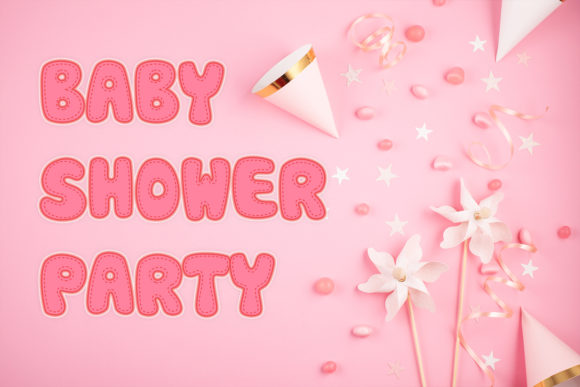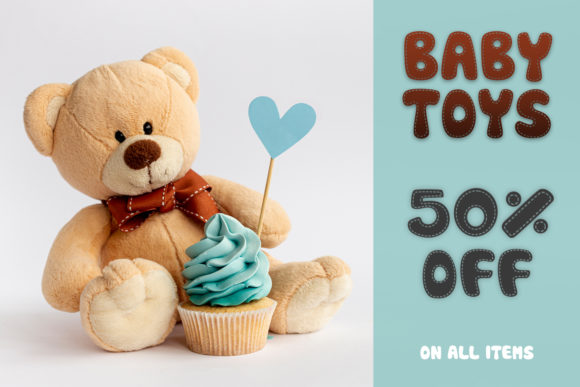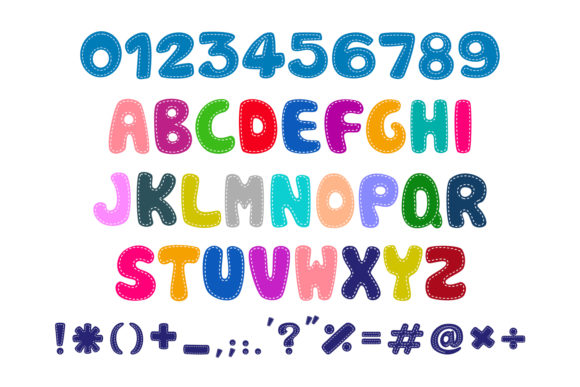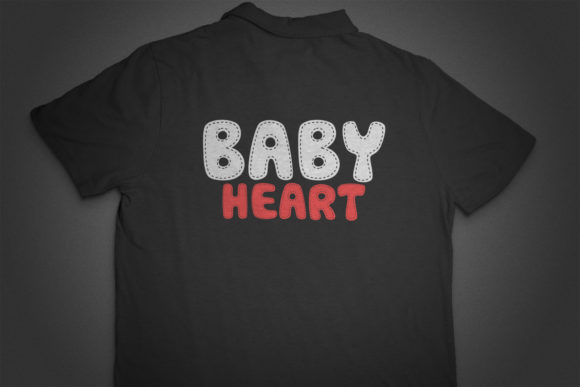
Baby Font: The Cute and Quirky Display Font to Elevate Your Designs
Are you tired of using the same old fonts in your designs? Do you want to add a touch of joy and whimsy to your creative projects? Look no further than Baby Font, a delightful and quirky display font that’s sure to make your designs stand out. In this article, we’ll take a closer look at Baby Font, its features, and how you can use it to take your designs to the next level.
What is Baby Font?
Baby Font is a beautiful display font that’s designed to add a playful and cheerful touch to your designs. With its cute and quirky style, it’s perfect for designers and crafters who want to create fun and engaging projects. Whether you’re working on a logo, poster, or social media graphic, Baby Font is sure to bring a smile to your audience’s face.
Key Features of Baby Font
So, what makes Baby Font so special? Here are some of its key features:
- Cute and Quirky Style: Baby Font has a unique and playful style that’s sure to capture your audience’s attention.
- Display Font: Baby Font is designed as a display font, making it perfect for headlines, titles, and other prominent text elements.
- Easy to Read: Despite its playful style, Baby Font is easy to read, even at smaller sizes.
- Versatile: Baby Font can be used in a wide range of design projects, from logos and posters to social media graphics and more.
How to Use Baby Font in Your Designs
Now that we’ve covered the features of Baby Font, let’s talk about how you can use it in your designs. Here are some ideas to get you started:
- Logos and Branding: Use Baby Font to create a fun and memorable logo for your business or brand.
- Posters and Flyers: Add Baby Font to your posters and flyers to grab attention and create a playful vibe.
- Social Media Graphics: Use Baby Font to create engaging social media graphics that will stand out in crowded feeds.
- Crafting and DIY Projects: Baby Font is perfect for crafters and DIY enthusiasts who want to add a personal touch to their projects.
Tips for Getting the Most Out of Baby Font
Here are some tips for getting the most out of Baby Font:
- Use it Sparingly: Baby Font is a display font, so use it sparingly to create emphasis and visual interest.
- Pair it with Other Fonts: Experiment with pairing Baby Font with other fonts to create a unique and visually appealing combination.
- Experiment with Colors: Baby Font looks great in a wide range of colors, so don’t be afraid to experiment and find the perfect hue for your design.